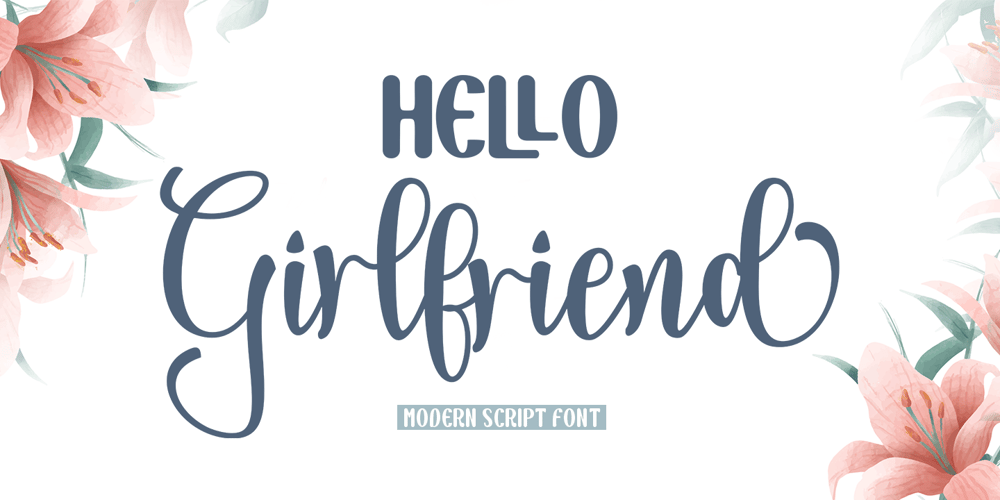
Hello Girlfriend Font Family was designed by Reza Haitami and published by Black Studio. Hello Girlfriend contains 2 styles and family package options. Hello Girlfriend Font Duo is a fancy font. which comes with a combination of modern and elegant fonts, namely Script and Sans style. You can combine them to create beautiful typography. This handmade style makes it perfect to use in all your design projects be it logos, labels, packaging designs, blog titles, posters, wedding designs, social media posts, Instagram designs, invitation cards, quote art, home decor, book covers/titles , etc.Here’s what’s included:Hello Regular Girlfriend / Bold Script• Elegant and realistic Script font contains 108+ ligatures and substitutes, lowercase, uppercase, all punctuation & numbers.Regular / Bold Hello Boyfriend• Sans font with upper and lower case, all punctuation marks, numbers and Language support• Hello Girlfriend supports the following languages; English, French, Italian, Spanish, Portuguese, German, Swedish, Norwegian, Danish, Dutch, Finnish, Indonesian, Malay, Hungarian, Polish, Croatian, Turkish, Romanian, Czech, Latvian, Lithuanian, Slovak, Slovenian.I hope you enjoy this font. If you have any questions, feel free to message me 🙂